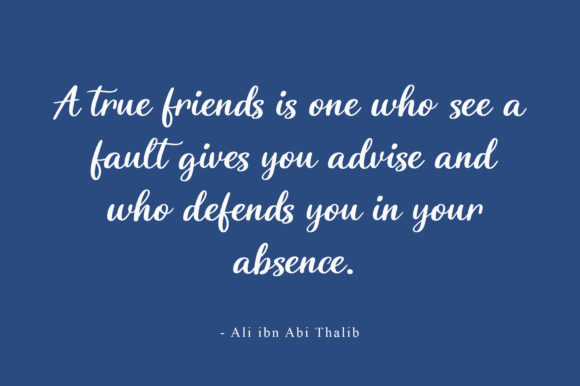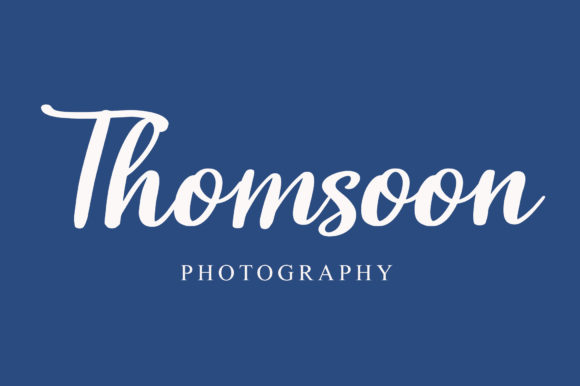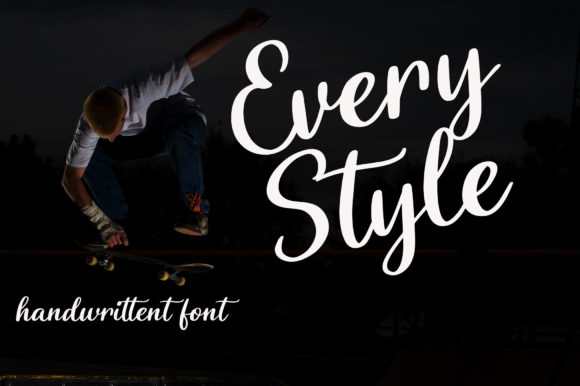
Introduction to Luxurious Font
Have you ever stared at a blank page, pen in hand, waiting for that perfect spark to strike? For designers, this moment is a thrill of excitement, a chance to bring a creative project to life. It’s the moment when the Luxurious Font comes to mind – a beautiful script font that adds a touch of elegance to any design.
As a valuable design resource, Luxurious Font offers a unique combination of charm and sophistication. With its playful characters and transparent background, it’s the perfect addition to any high-quality design. Whether you’re working on a free download or a commercial project, Luxurious Font is sure to make your ideas stand out.
Key Features of Luxurious Font
- High-resolution design resource with transparent background for seamless integration into creative projects
- Includes 5 unique font styles with varying levels of opulence and sophistication
- Designed with high-quality graphics and intricate details for a truly luxurious look and feel
- Large character set with over 500 glyphs, including international characters and symbols
Honest Review: Luxurious Font
I recently had the chance to work with Luxurious Font, and I must say it’s been a game-changer for my design projects. The font’s elegant and sophisticated design makes it perfect for high-end creative projects that require a touch of luxury.
- ✨ High-quality design that exudes luxury and sophistication
- ✨ Versatile font that can be used for a variety of design applications
- ✨ Transparent background option makes it easy to customize and integrate with other design elements
- ⚠️ Some users may find the font too ornate or over-the-top for certain design applications
Overall, I’m thoroughly impressed with Luxurious Font. While it may have some limitations, its high-quality design and versatility make it a valuable addition to any designer’s toolkit. Whether you’re working on a high-end design project or just need a sophisticated font for your next creative project, Luxurious Font is definitely worth checking out.
To get the most out of the Luxurious Font, use it in conjunction with other high-quality design resources. Experiment with different font sizes, colors, and styles to create a unique and eye-catching design.
The Luxurious Font is perfect for creating invitations, business cards, and other marketing materials. It’s also great for use in social media graphics, blog posts, and other online content.